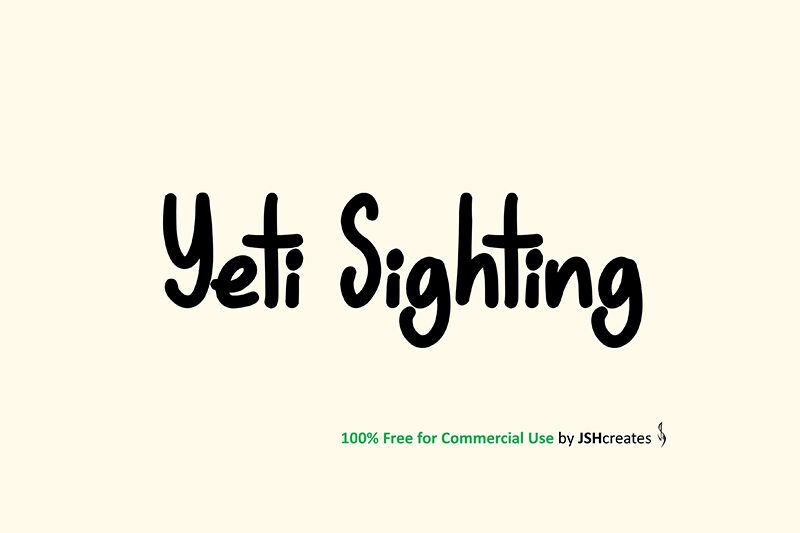
Yeti Sighting font from JSH creates is a whimsical handwritten font with condensed letters. In a friendly tone, the free typeface carries casual vibes, ones that are further enhanced with its animated character style. The letterforms feature easy-to-read contours which add to the font’s approachably playful aesthetical experience.
A few of its many use cases include children’s book covers and storybooks, greeting cards for any occasion, school projects and newsletters. Besides being useful also for lifestyle blogs, it can be used for badges and stickers where it will deliver an aesthetic visual satisfying the creator and their audience alike.